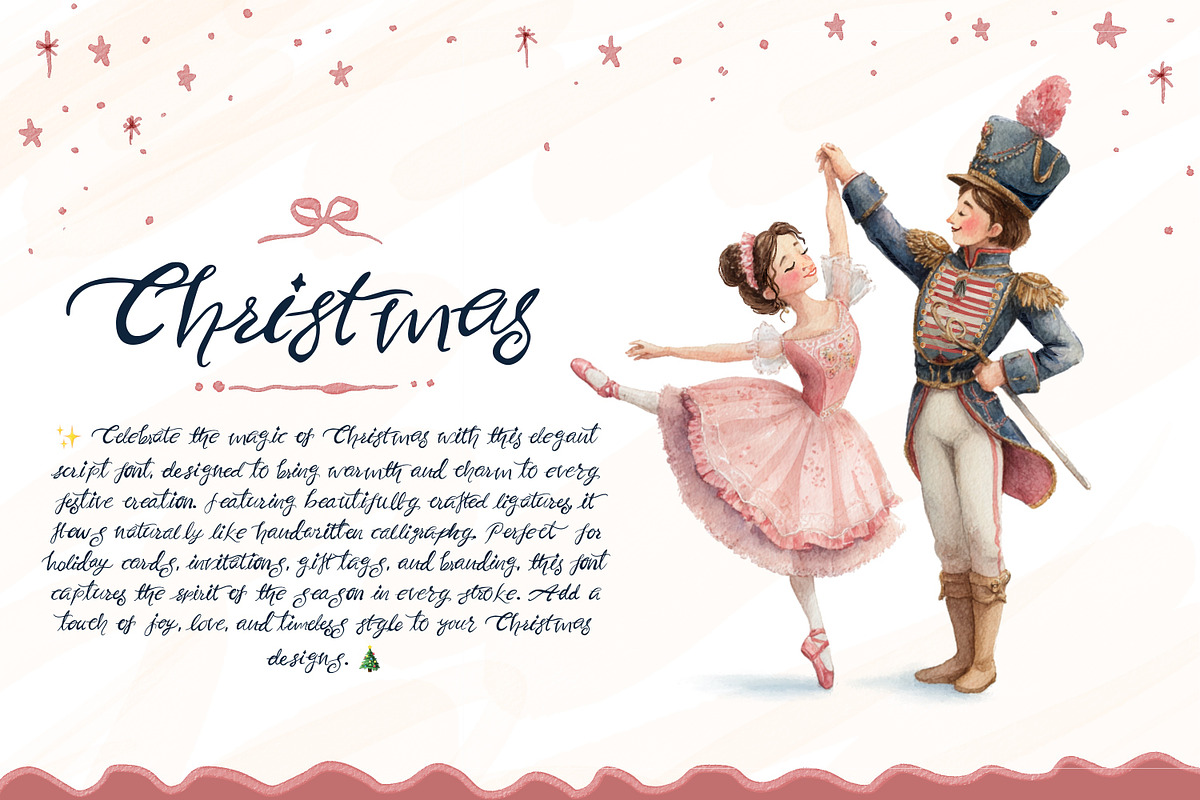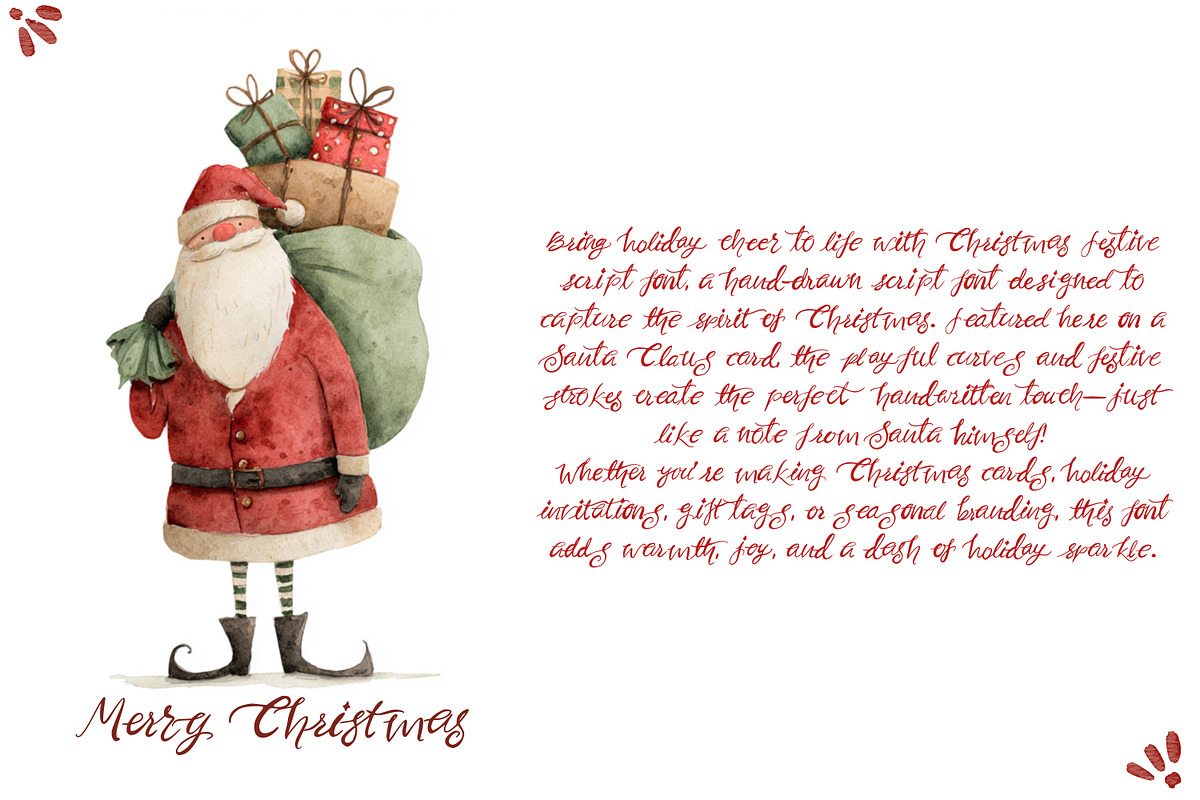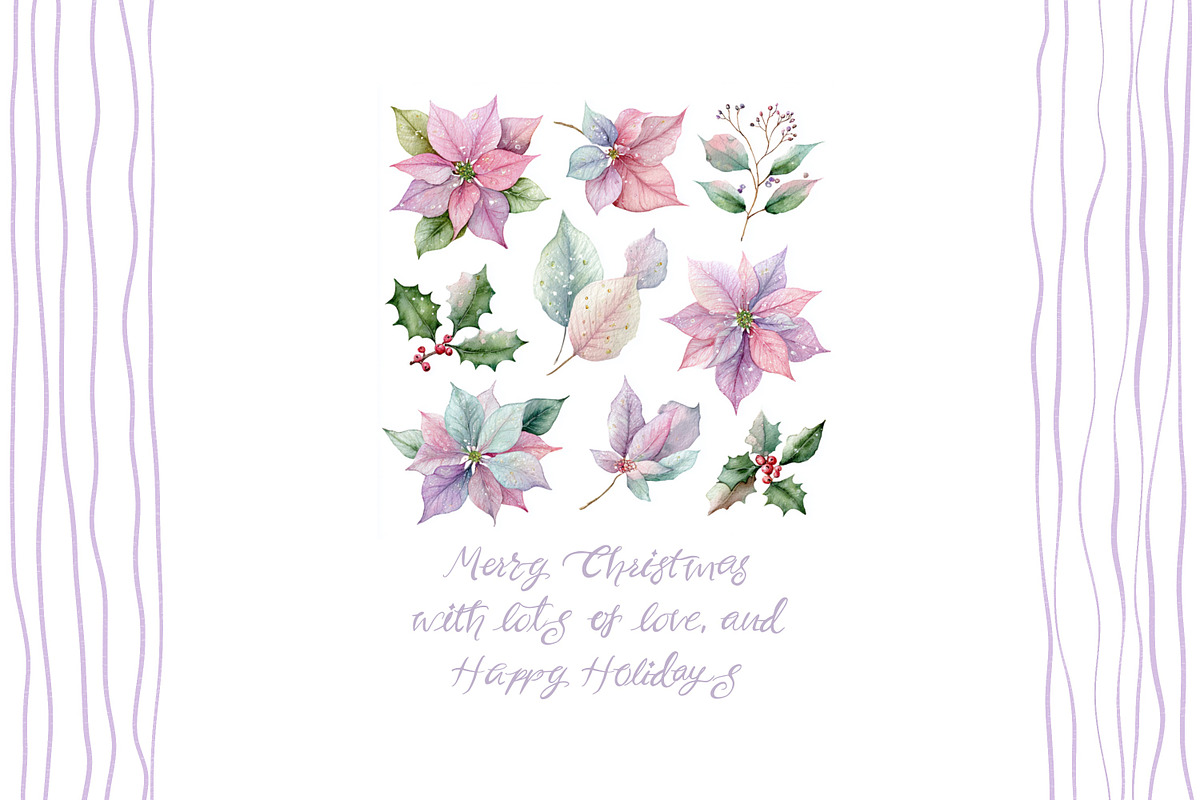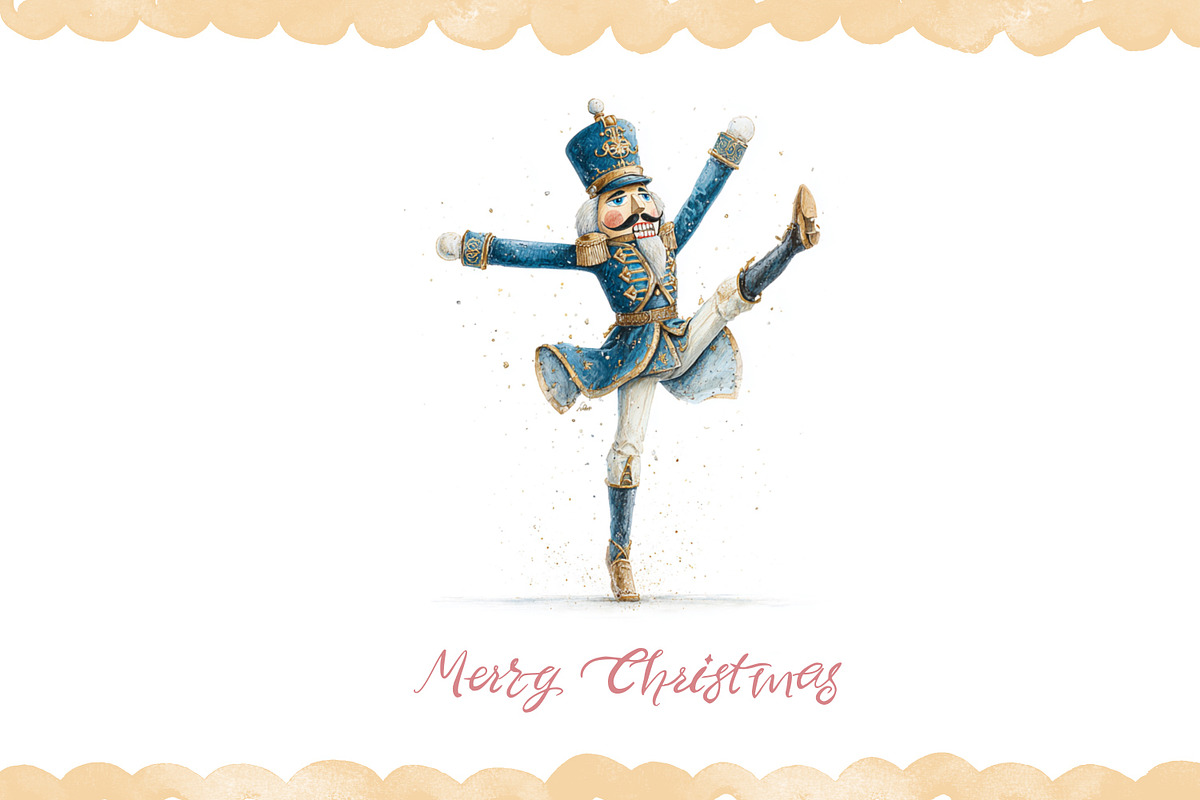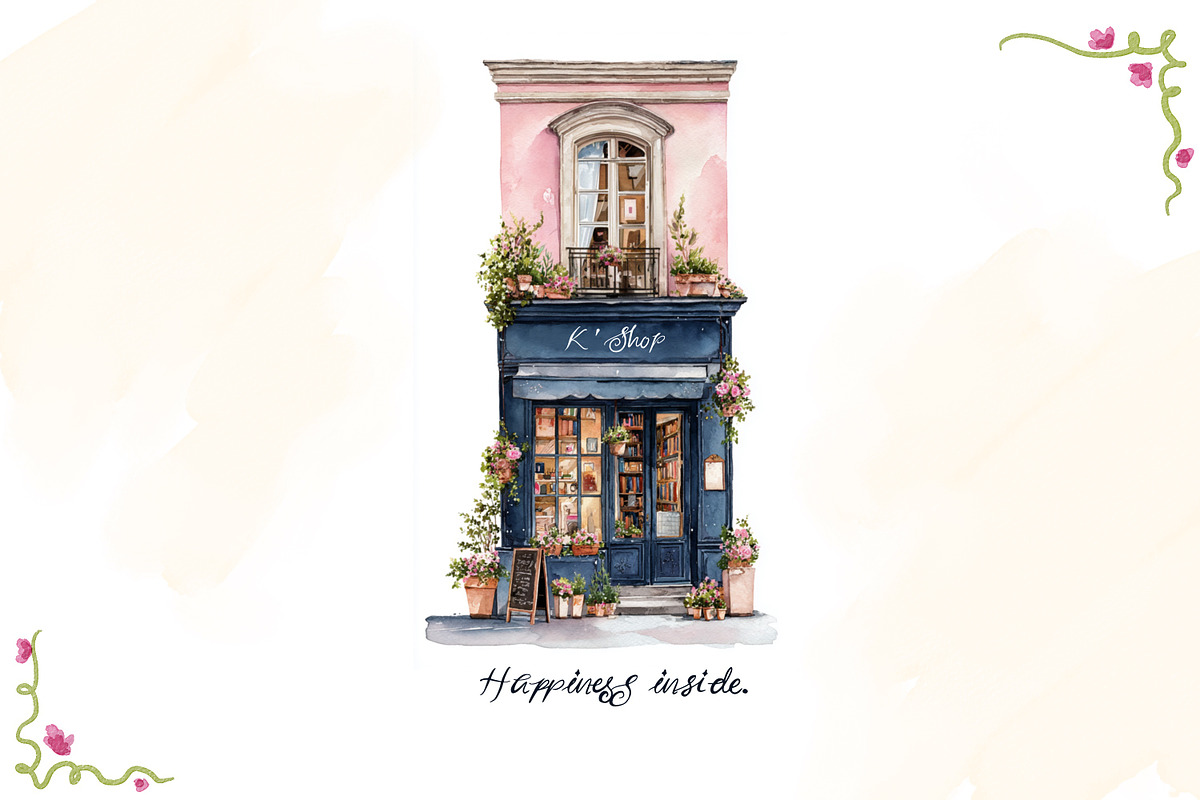
Christmas Festive script Font
Bring the magic of the holidays into your designs with Christmas font script, a festive hand-drawn script font that captures the warmth and charm of Christmas. This playful yet elegant script is perfect for creating holiday cards, gift tags, invitations, seasonal branding, social media graphics, and festive packaging. Its natural, hand-crafted strokes give a cozy and authentic touch like a handwritten note filled with holiday cheer. ✨ Features: Hand-drawn script with festive personality Uppercase & lowercase letters Ligatures and stylistic alternates for a natural flow Numbers, punctuation, and currency symbol support High-quality OTF & TTF files included Whether you’re designing a sparkling Christmas poster, a cozy winter greeting, or stylish seasonal decor, [Font Name] adds a joyful spirit to every project.
Perfect for: Holiday stationery, branding, quotes, Instagram posts, wedding invites, and DIY festive crafts.
Make your Christmas creations shine with the timeless charm of a handwritten holiday script!